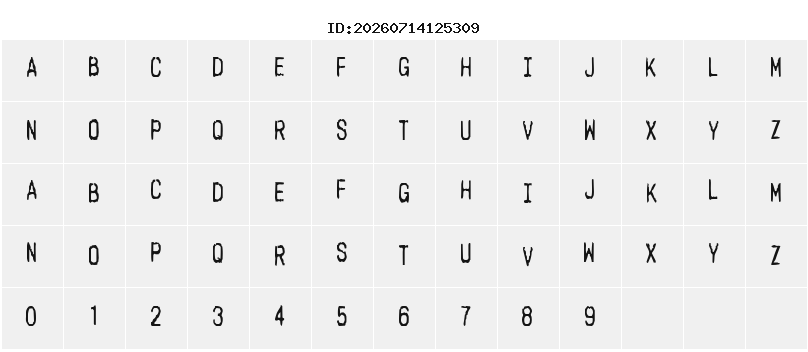
• Font Name: Harsh language AC
Harsh language AC.ttf is a modern, elegant sans-serif font designed for ultimate readability and visual harmony. Perfect for branding, headlines, web design, and print materials.